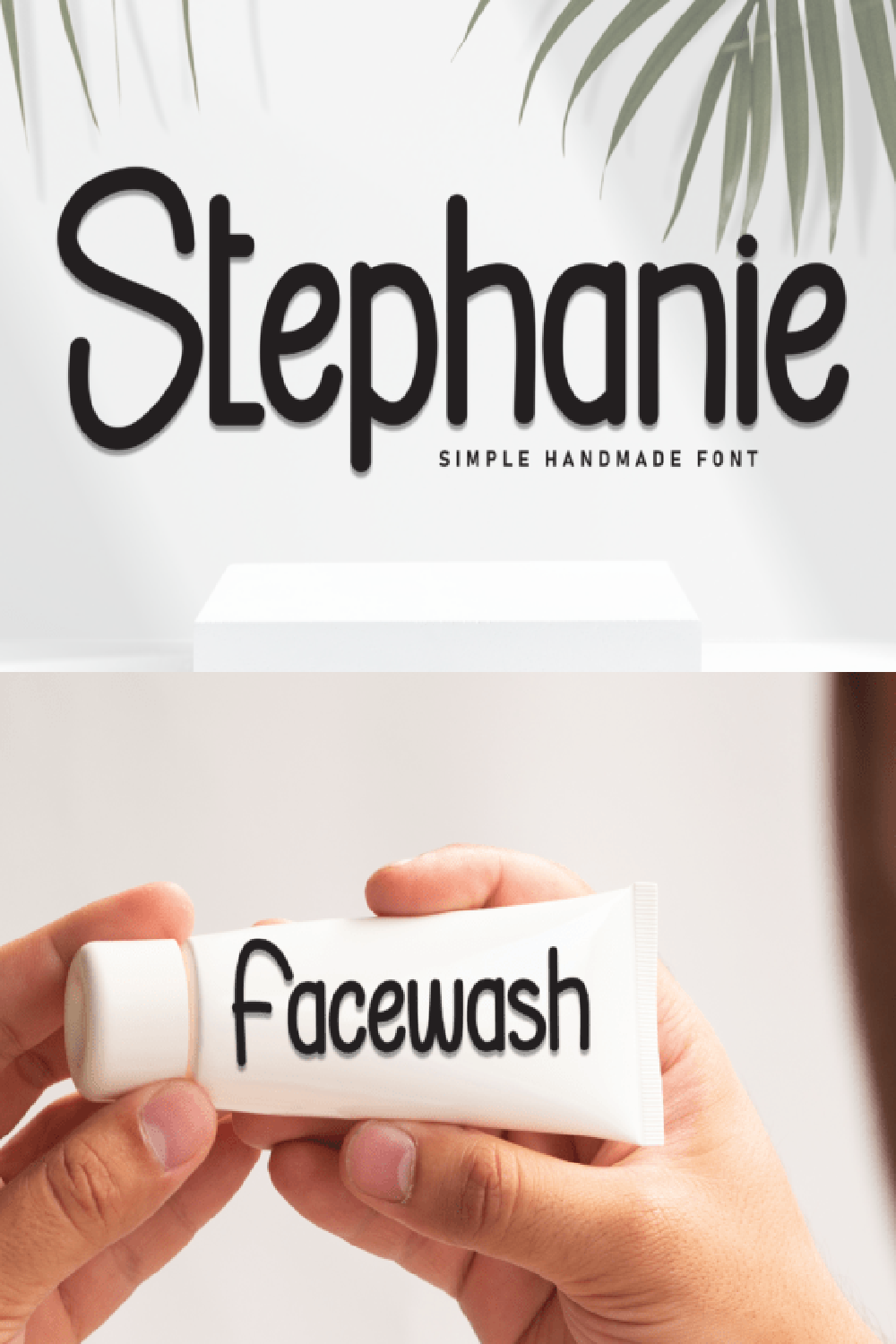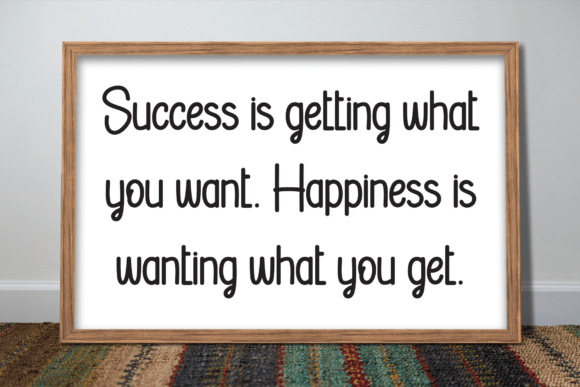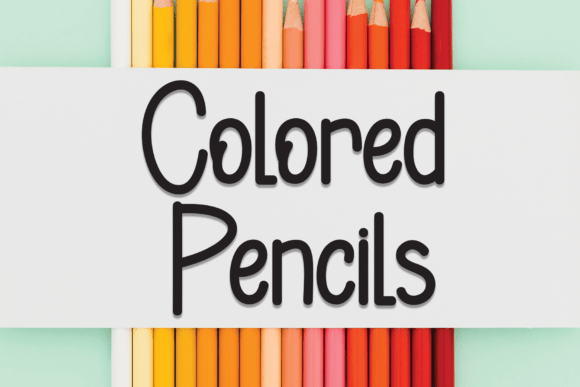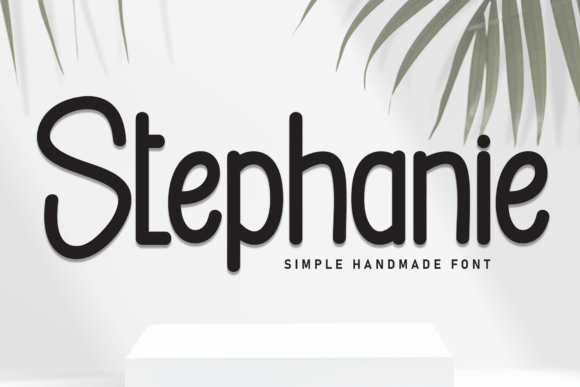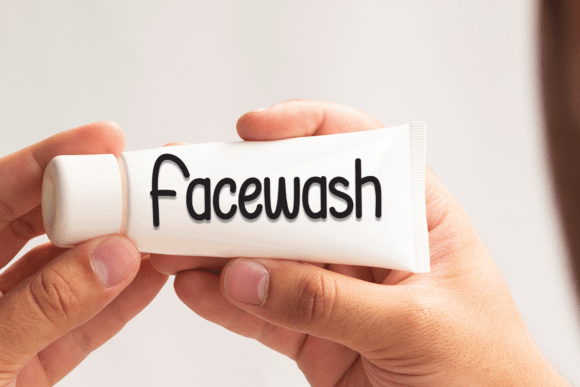
Stephanie Font: A Cute Display Font for Social Media & Packaging
About the Stephanie Font
Presenting Stephanie Font, a unique and stylish typeface that will make your work stand out. Stephanie is a casual and neat display font that radiates a fresh, friendly vibe. With clean lines and a relaxed structure, it’s perfect for packaging, posters, and social media graphics. The approachable design adds charm and clarity to projects while maintaining a polished appearance.
Stephanie Font Usage Examples